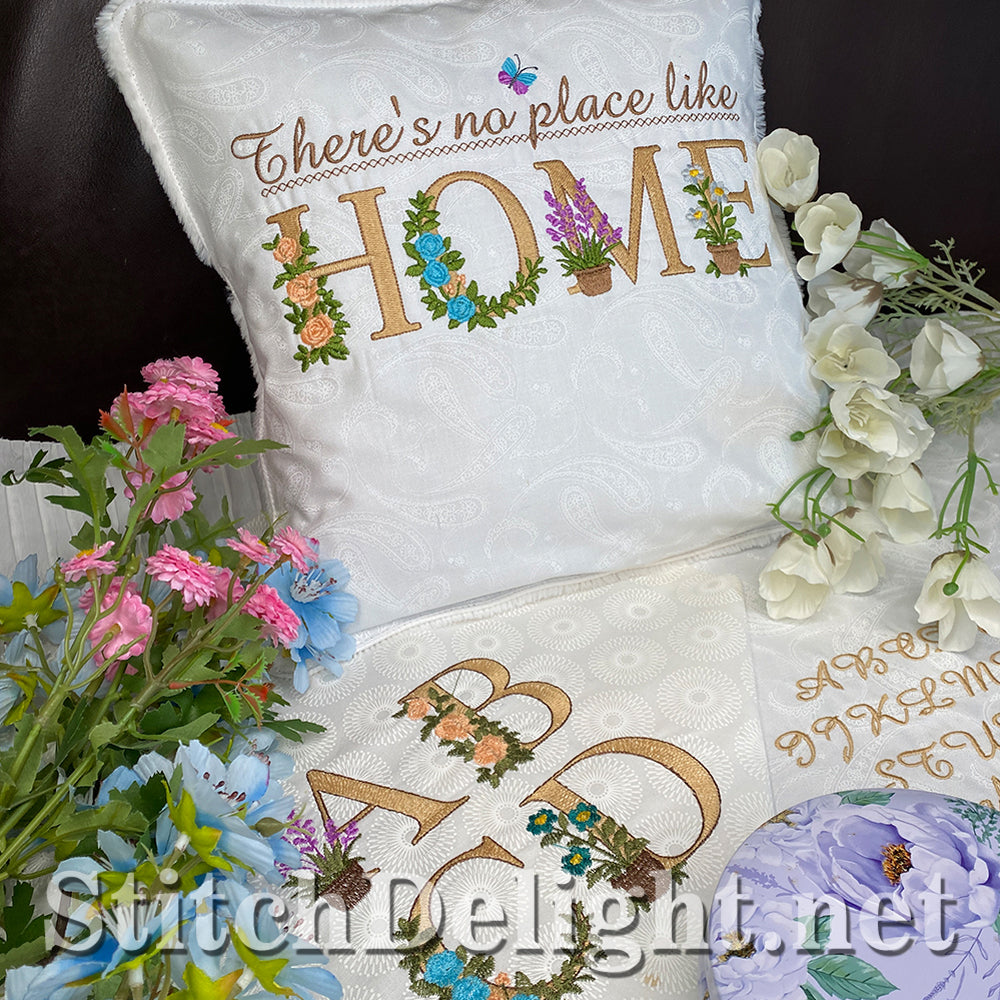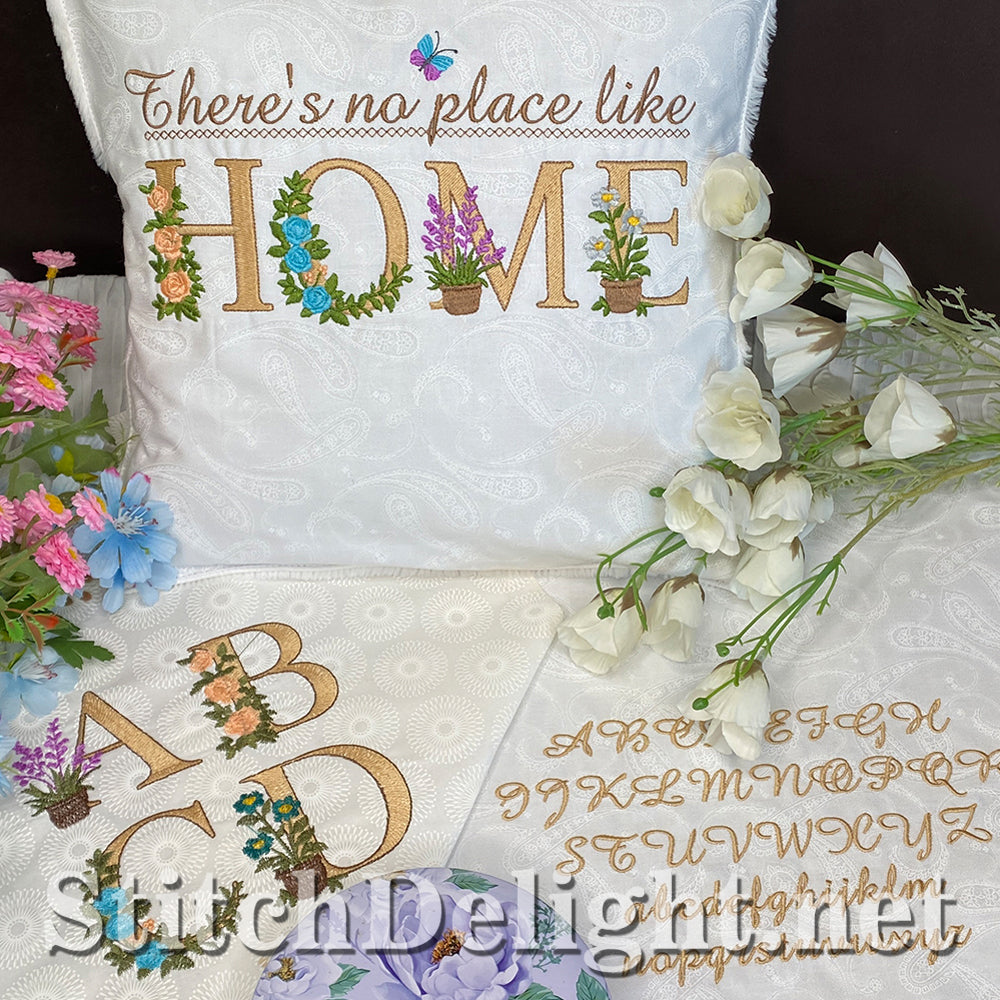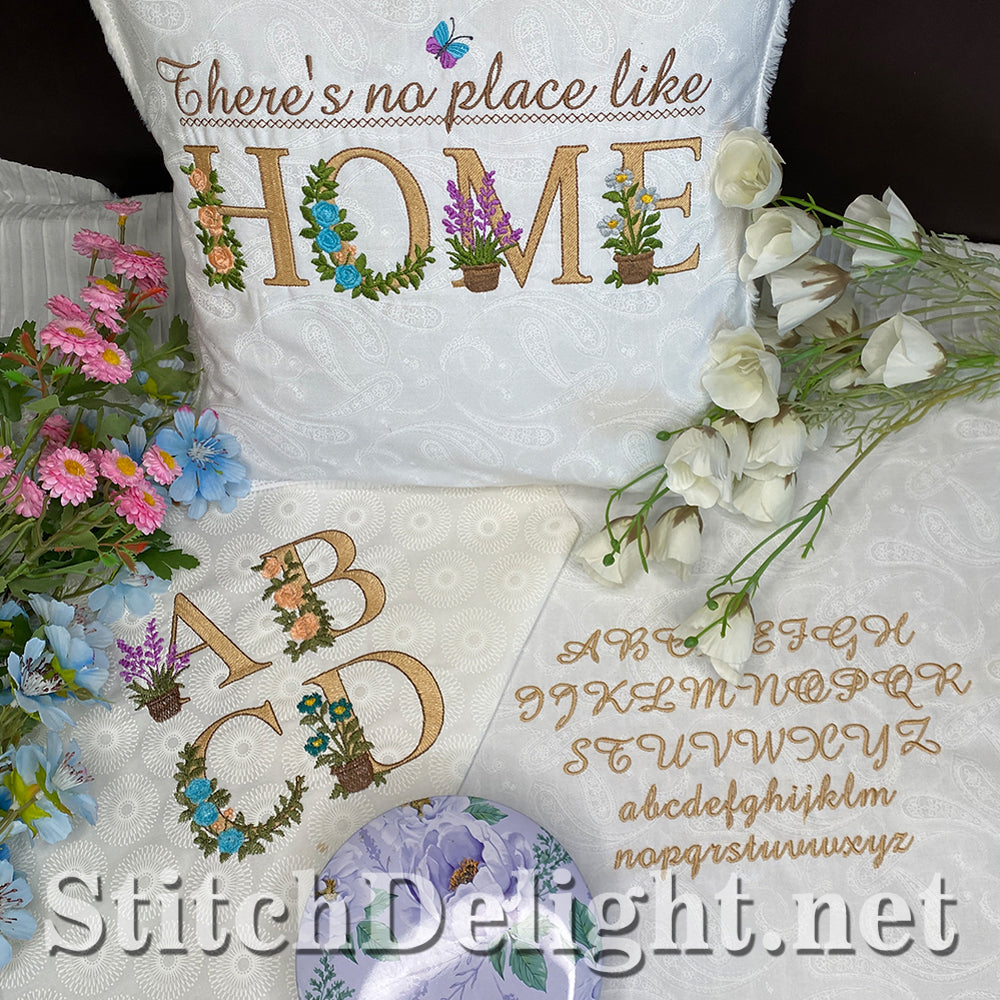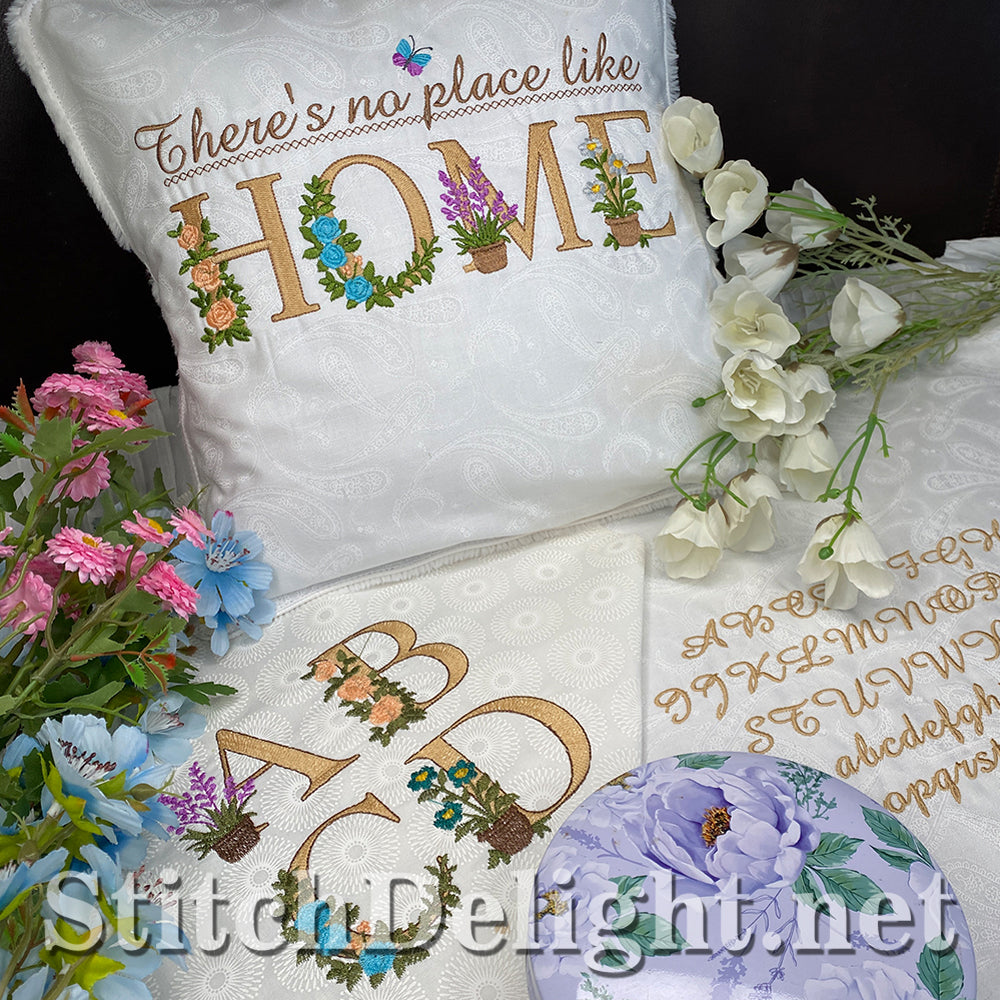
🌸 Flower Picture Font – Where Every Letter Blooms
Introducing our brand-new Flower Picture Font — where every letter blossoms into something truly special.
This isn’t just a font. It’s a tiny garden stitched into every word.
Each character is beautifully shaped with delicate floral elements, creating a “picture-style” letter that looks complete and decorative all on its own. Whether you stitch a single initial or a full name, every letter feels like a finished design.
🌼 Designed for Real-Life Projects
With an average height of 2.6 inches, this font is ideal for:
- Smaller hoop sizes
- Kids’ clothing
- Tote bags
- Cushion covers
- Table runners
- Bible covers
- Gift bags
- Wall hangings
- Quilt labels
- In-the-hoop projects
Because the letters are thoughtfully digitized with fewer stitches, this is a quick-stitch font — meaning less machine time and faster finishes (without compromising on beauty).
Perfect for when you want something stunning… but also practical.
🌷 Expand the Possibilities
To make this release even more exciting, we’ve created a matching companion font designed to pair beautifully with the Flower Picture Font.
Here’s where your creativity really opens up:
- Use the Picture Font for bold initials
- Add the matching font for names or dates underneath
- Create layered quotes
- Personalize gifts with a decorative first letter and a clean, coordinating script
When used together, these fonts move beyond simple monograms and open the door to:
- Framed home décor
- Seasonal wall art
- Personalized wedding gifts
- Housewarming presents
- Boutique-style product lines
- Coordinated quilt blocks
🌺 More Than Just Letters
The Flower Picture Font shines on its own.
But when paired with its matching font and our coordinating quote design, it becomes a complete creative collection — giving you flexibility, speed, and elegance all in one.
If you love fonts that feel alive, stitch quickly, and fit comfortably in smaller hoops… this one is going to bloom beautifully in your design library.